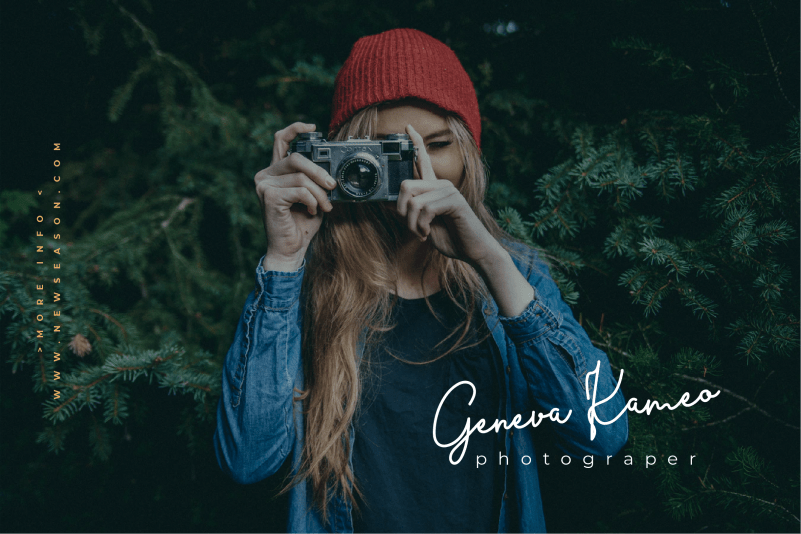
Barier Signature Script Font
Barier Signature Script Font simplifies elegance into one truly outstanding handwritten font. This versatility will appeal to a wide range of crafty ideas, from letterheads and titles, to stationery.